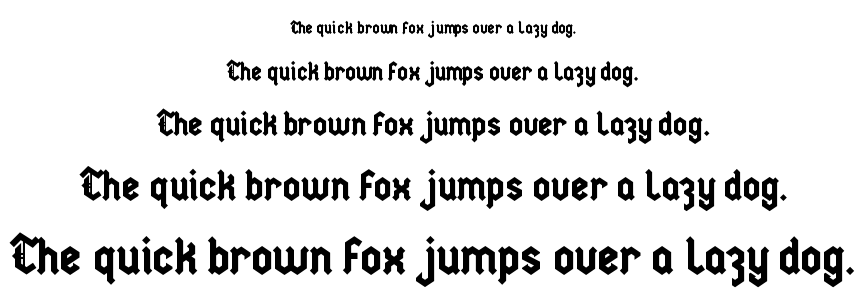
Home » Gothic » Metal Blackletter Gothic Metal Blackletter matt_doe November 2, 2015 25 Views 0 SaveSavedRemoved 0 Metal Blackletter Font MetalBlackletter_v4.ttf SIL Open Font License (OFL) - 1 font file Download 1185 downloads Character Mapspecimen sheetwaterfallMetalBlackletter_v4.ttf Free geometric blackletter font, SIL open font license. Type specimen here.